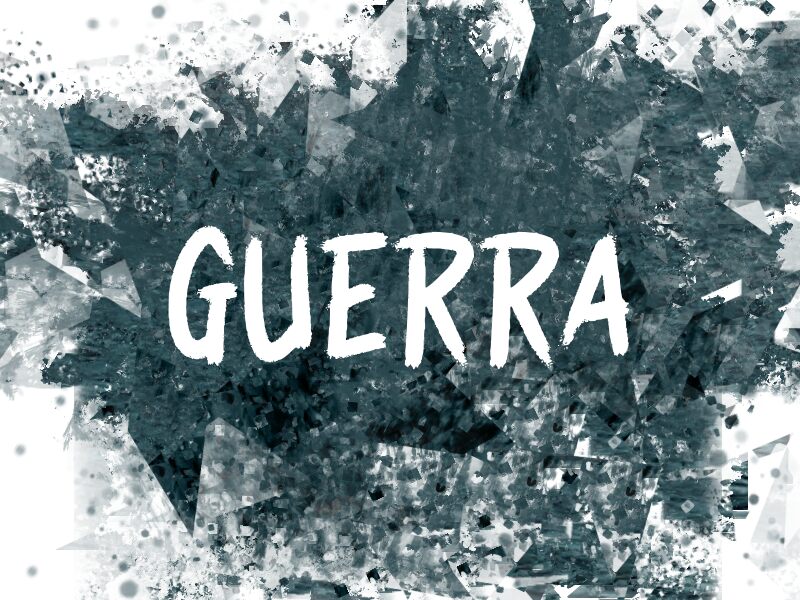
GUERRA
Guerra, crafted by the talented designer wep, stands out with its bold and energetic script style. This school-inspired font exudes a raw, hand-drawn charm that captures attention effortlessly. The condensed width of Guerra provides a strikingly cohesive appearance, ensuring that each letter seamlessly flows into the next.
Its aesthetic appeal is further accentuated by a rugged texture, giving it an authentic and slightly rebellious edge perfect for dynamic designs. Whether you're creating eye-catching posters, distinctive branding materials, or lively social media graphics, Guerra's unique personality will leave a memorable impression. It embodies both spontaneity and disciplined structure, making it versatile for a range of creative projects while retaining its unmistakable characteristic flair.